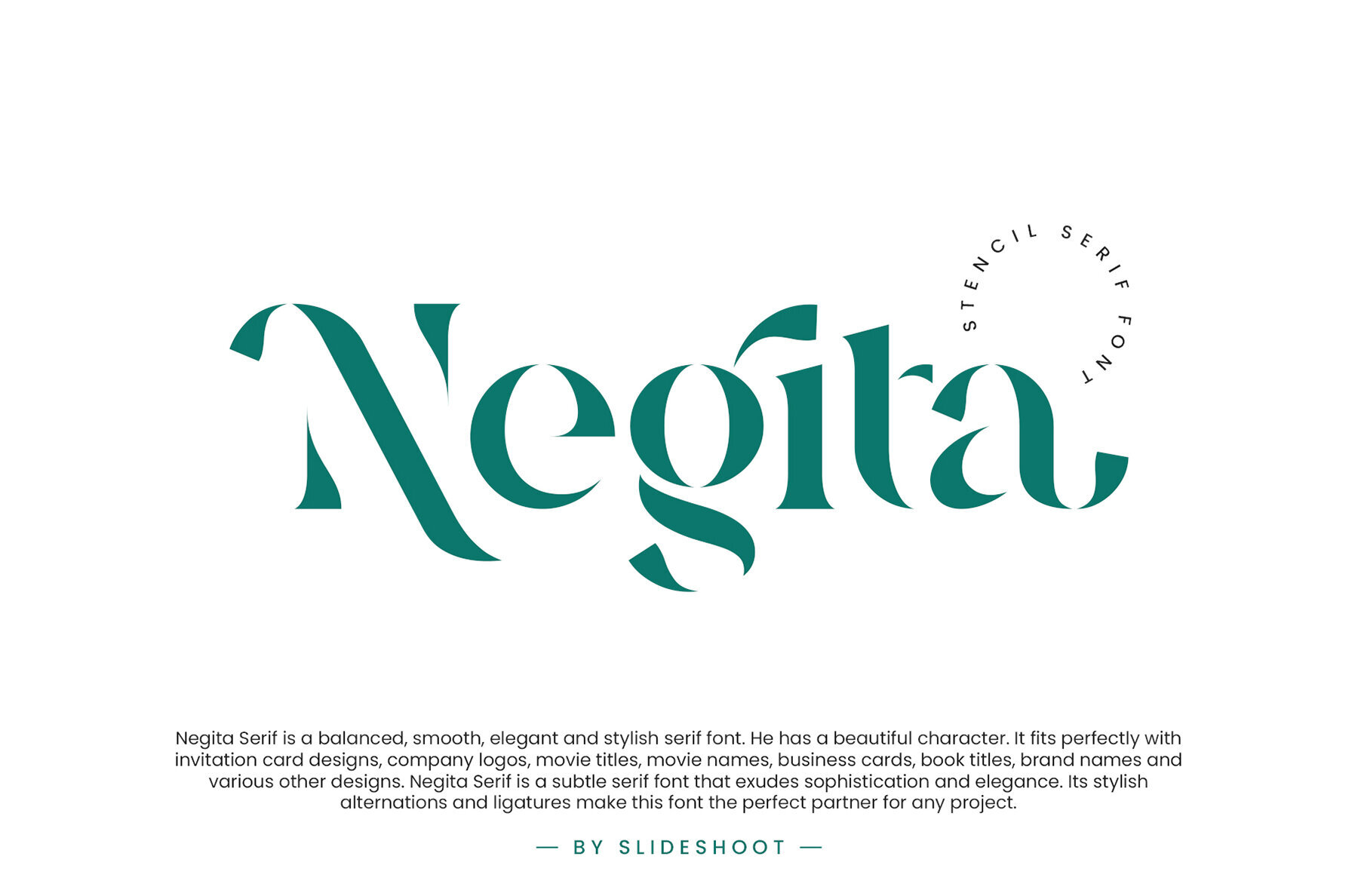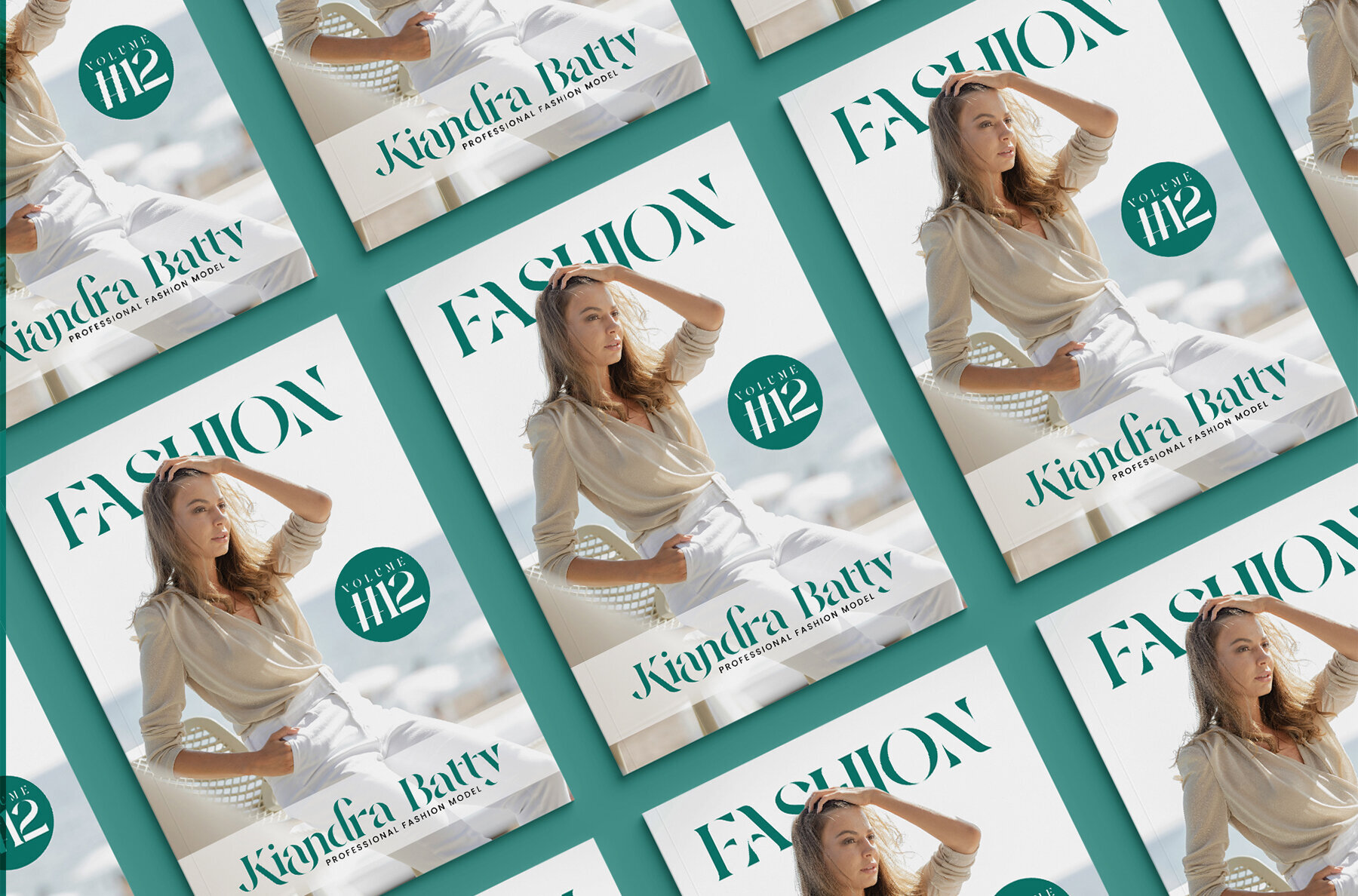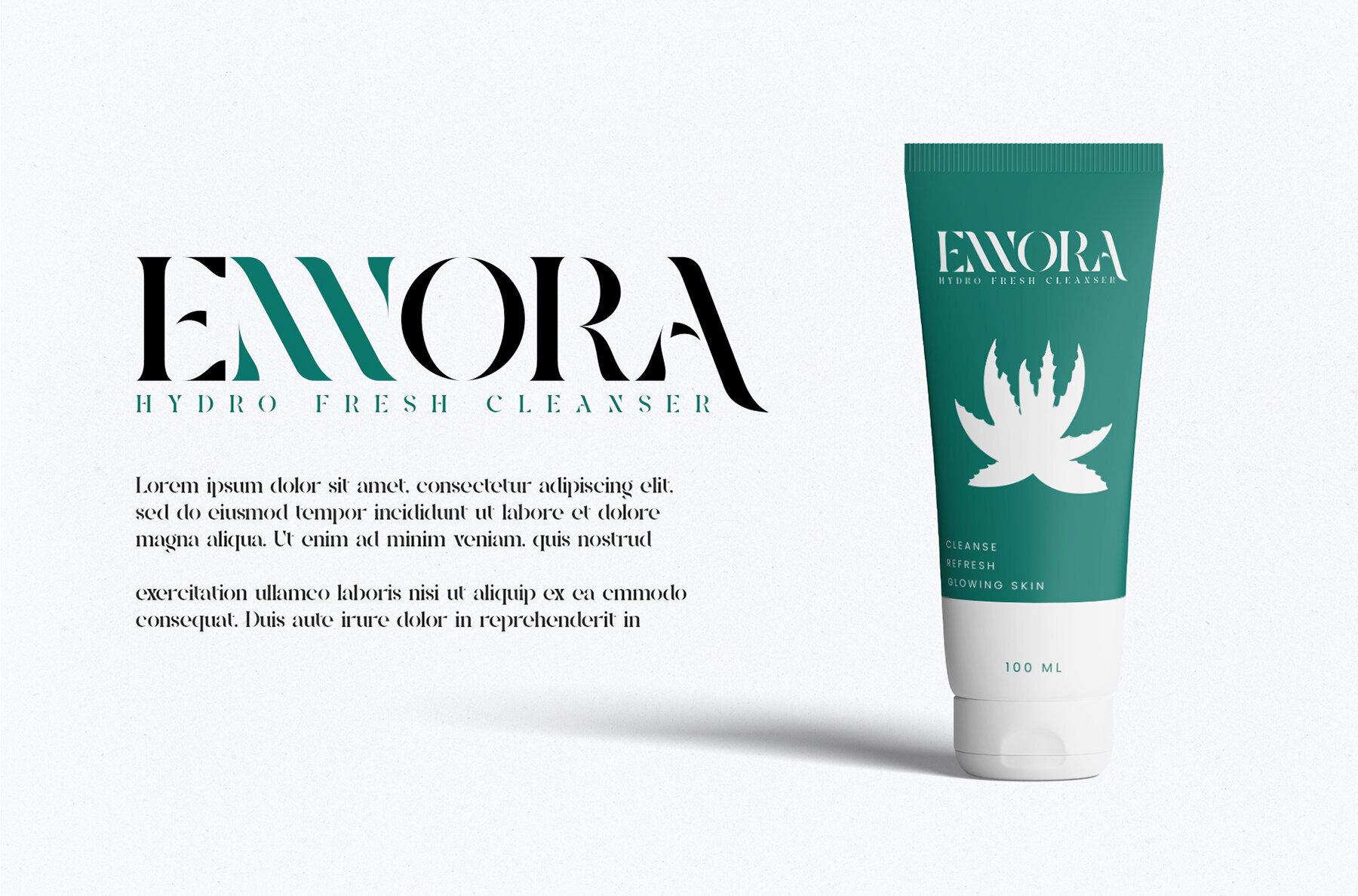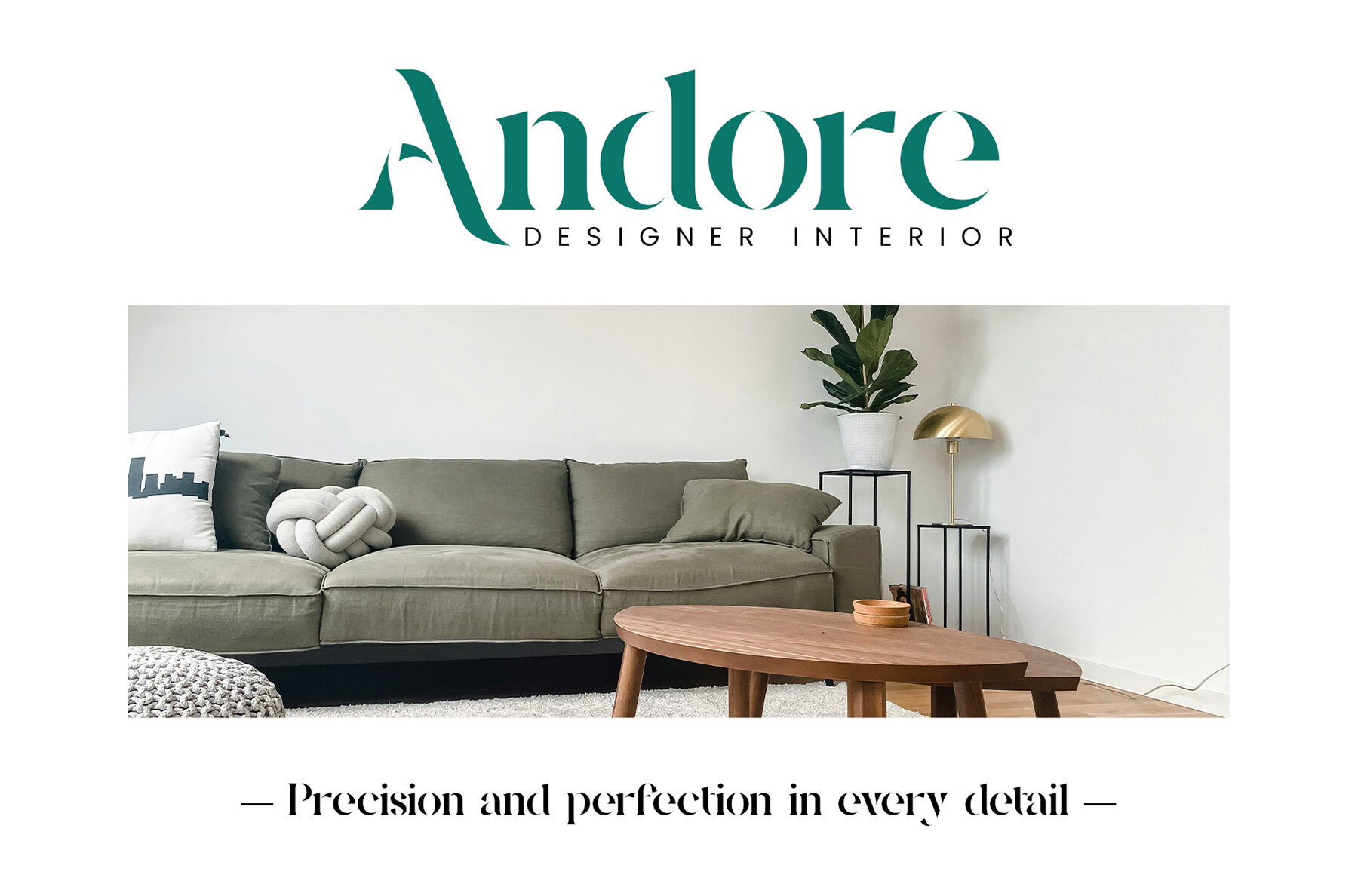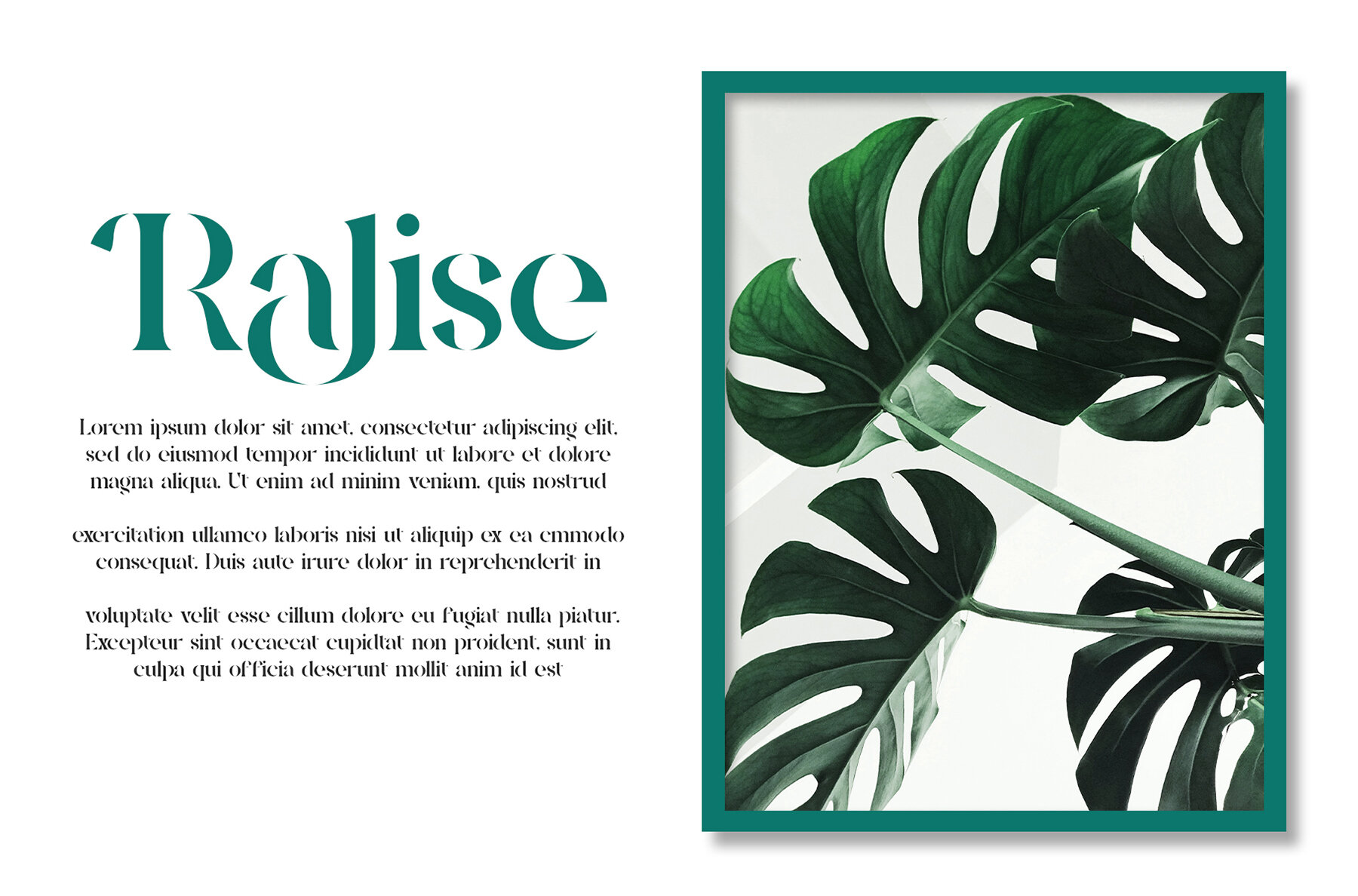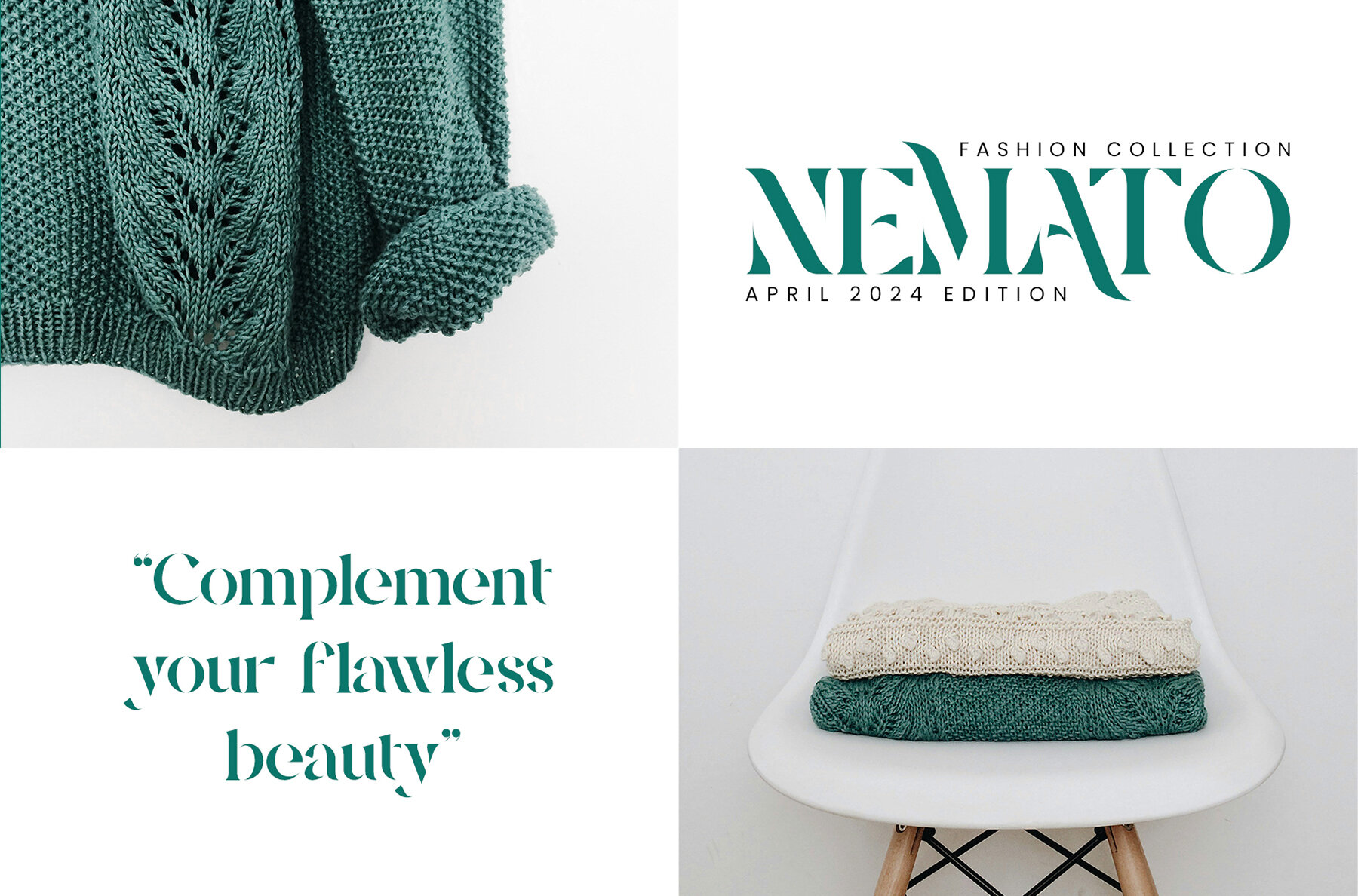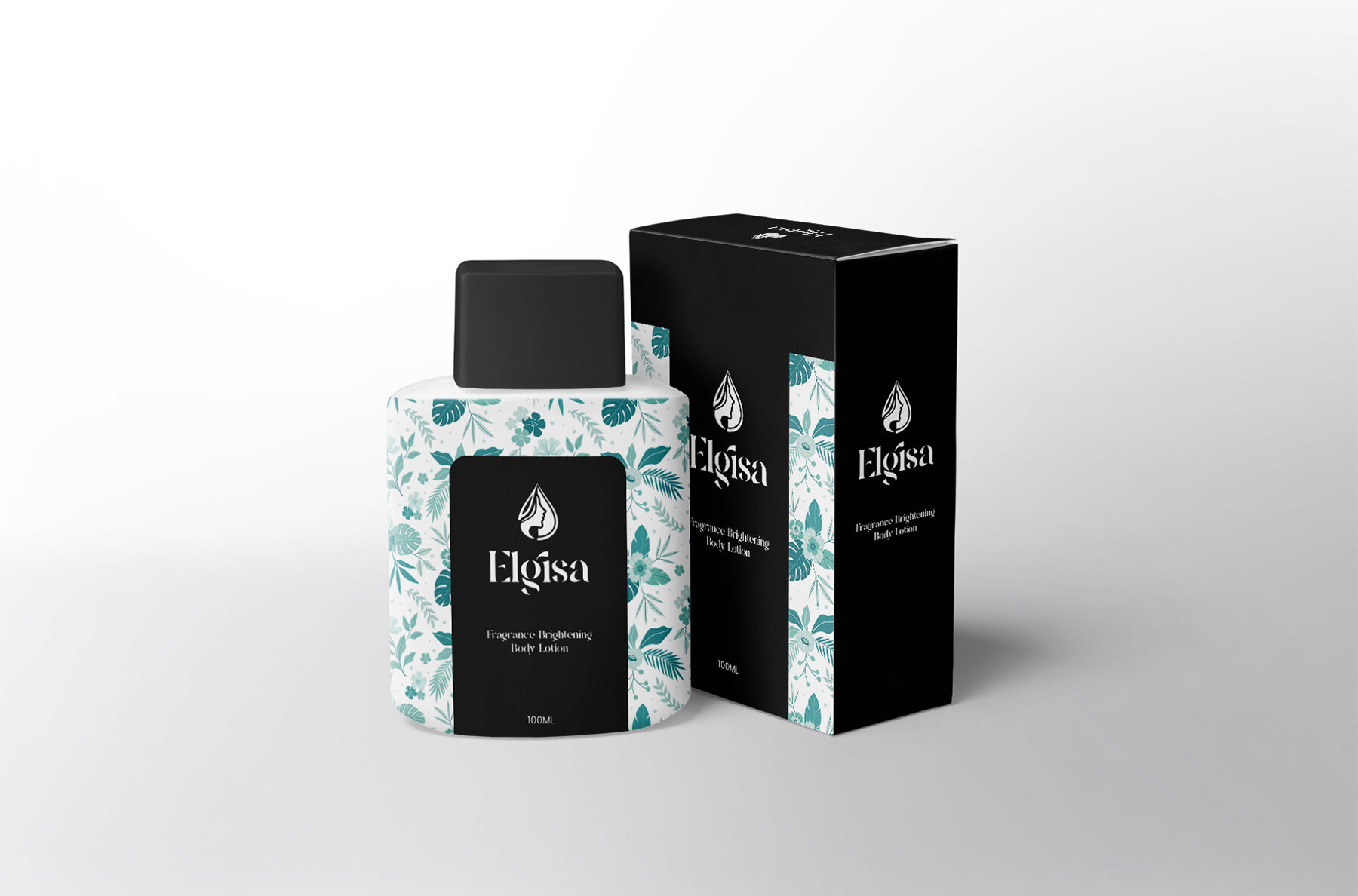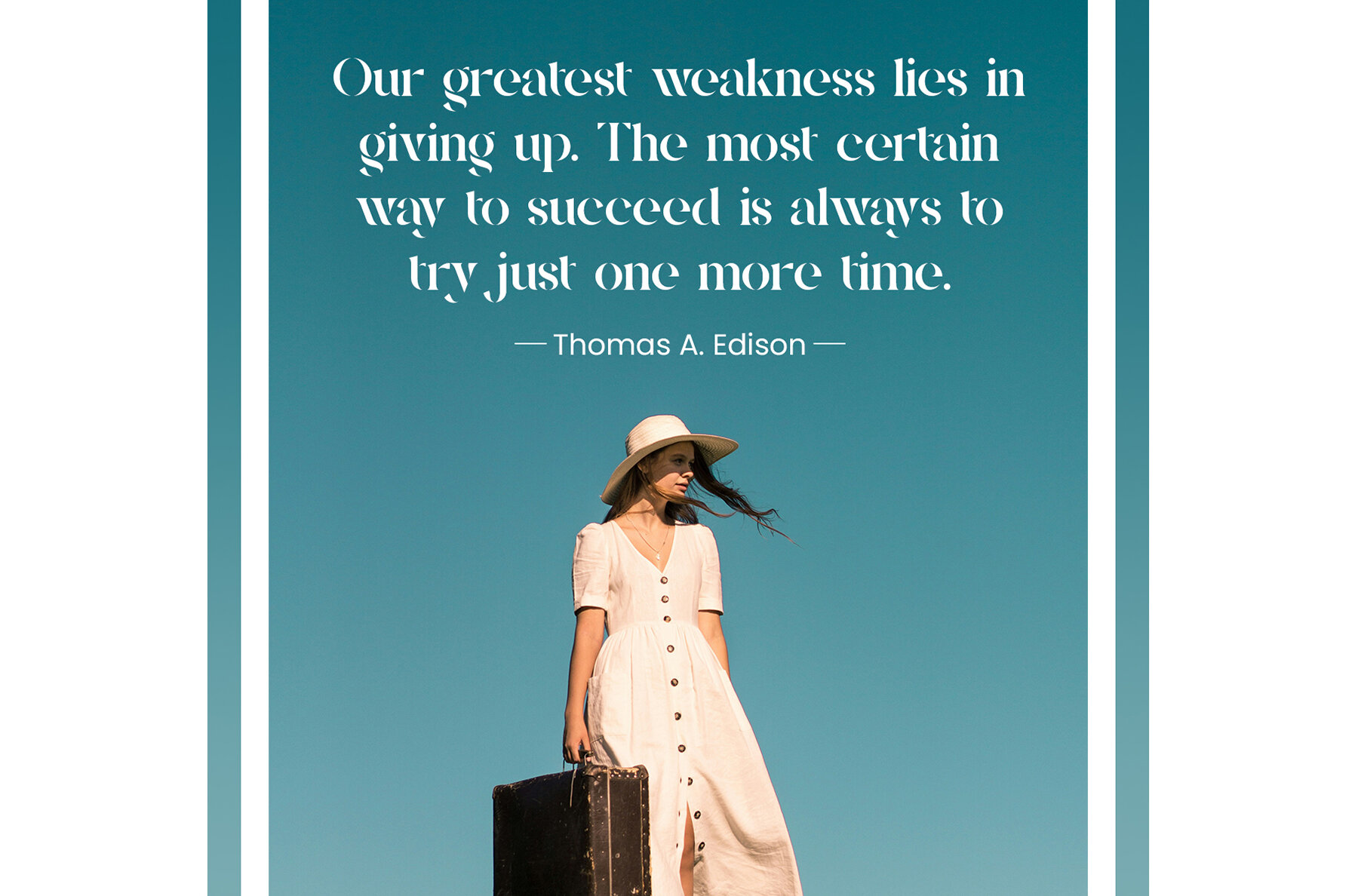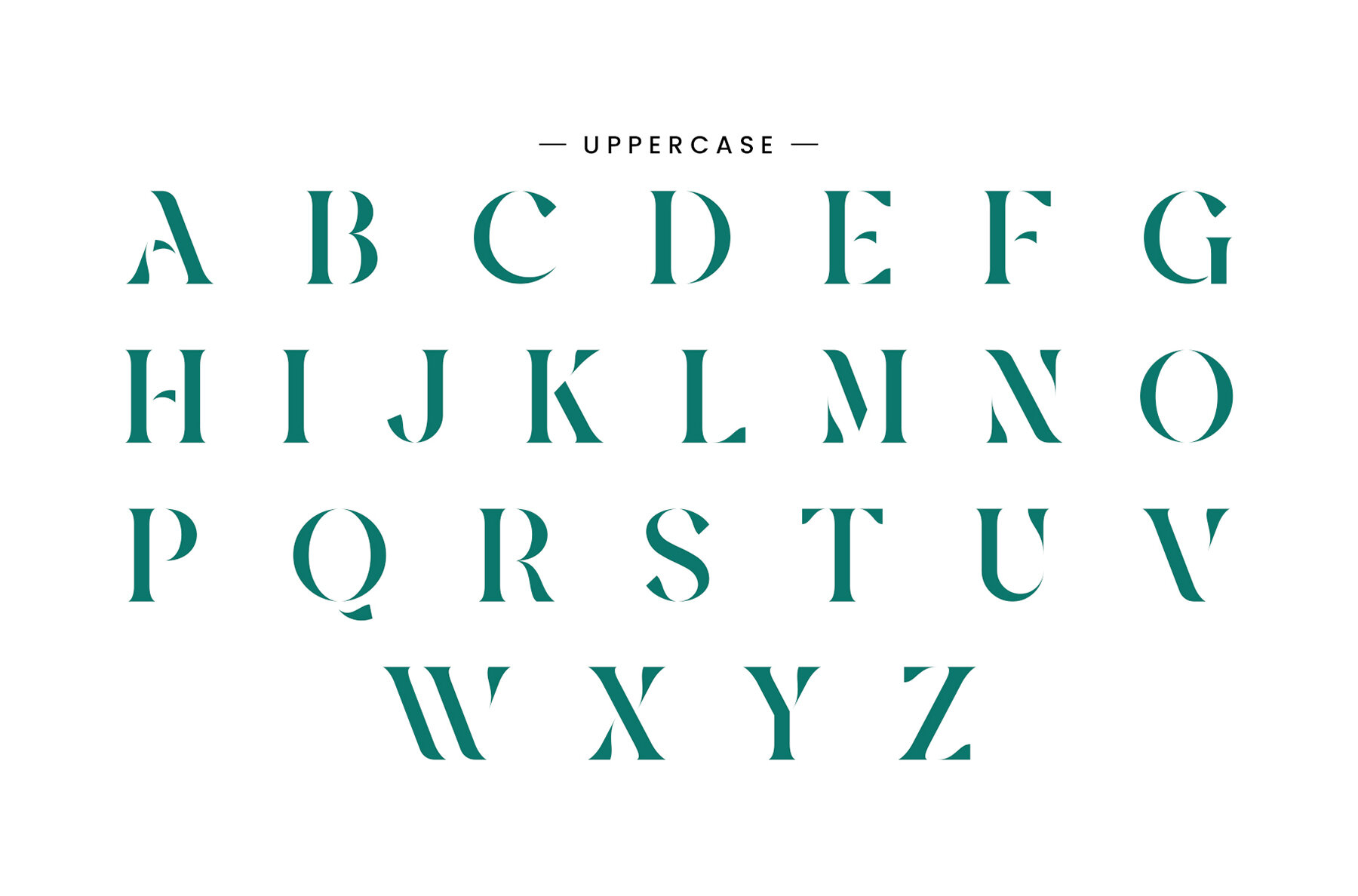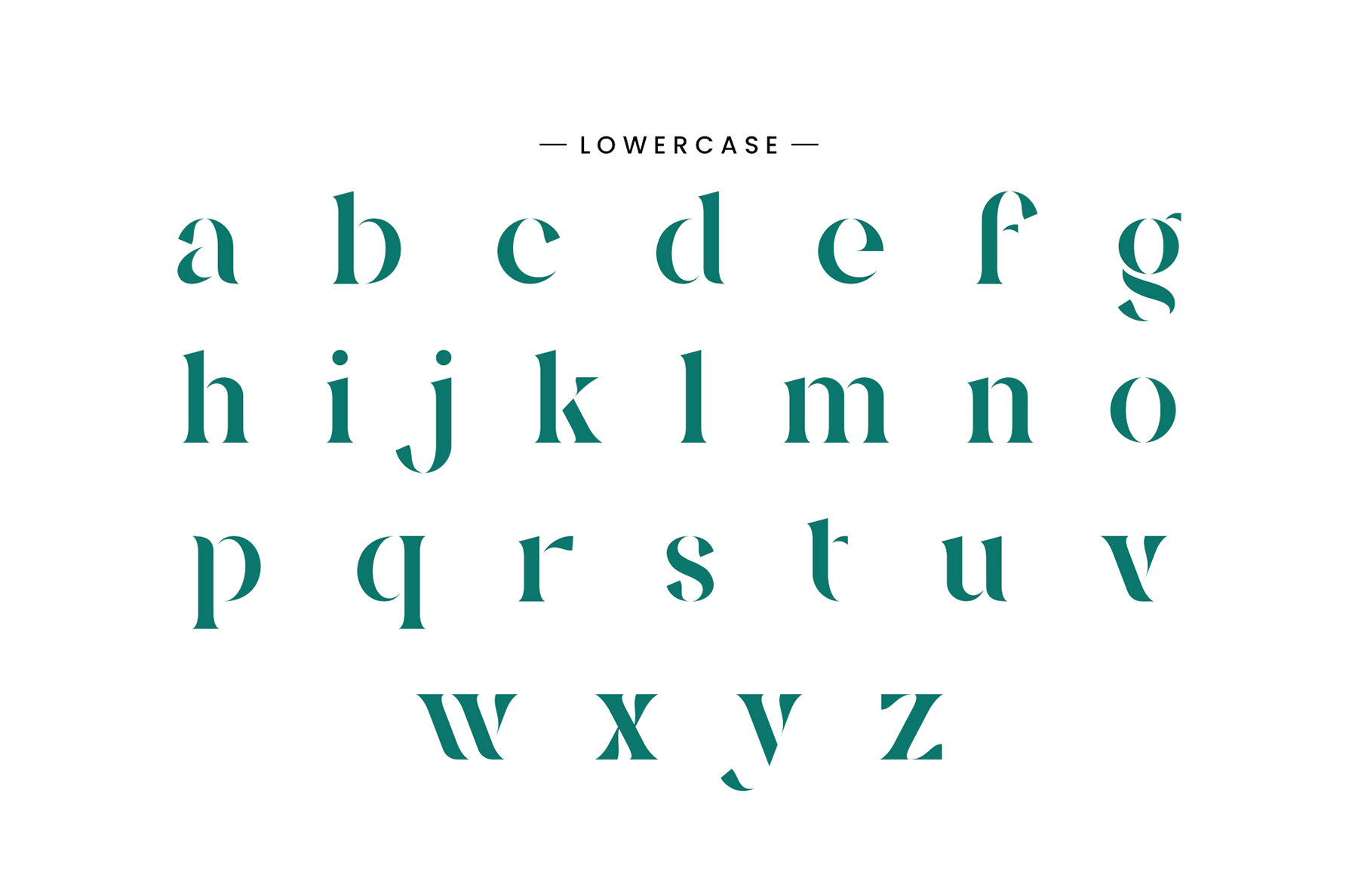
Negita Font
Negita Regular
Negita Stencil Serif is a sophisticated and stylish stencil serif font, featuring a balanced and smooth character. Its elegant design makes it ideal for various projects, including invitation cards, company logos, movie titles, business cards, book titles, and brand names. The font's refined alternations and ligatures bring a unique touch to any design, enhancing its overall visual appeal.